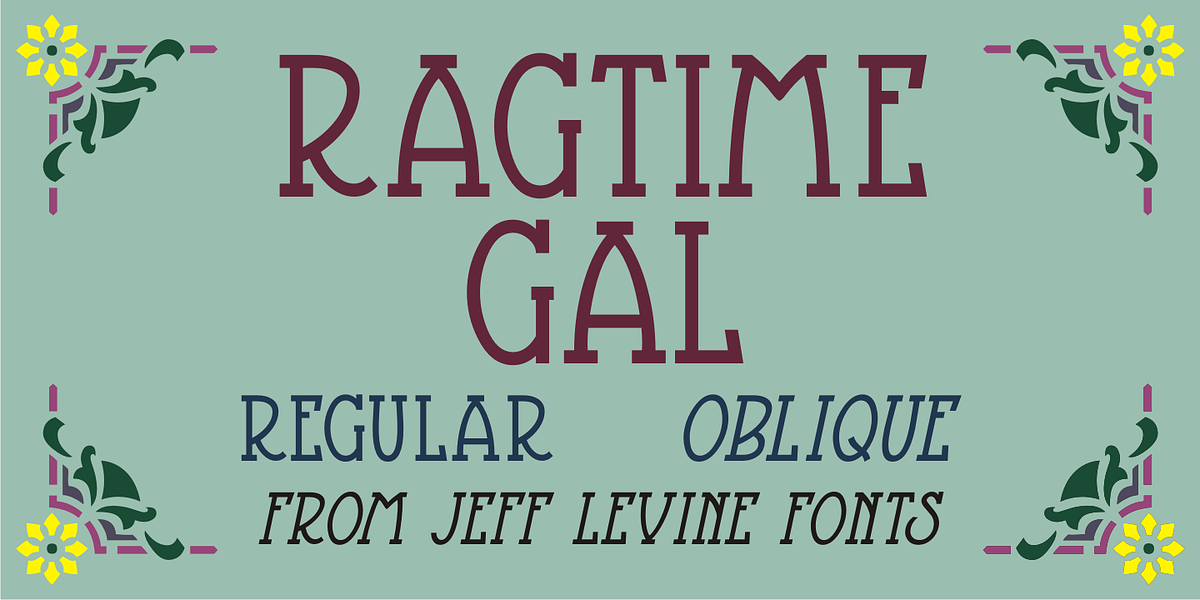
Ragtime Gal JNL
Amongst a batch of antique sheet musical instruction booklets offered for sale online was a piece with Art Nouveau hand lettering on the cover entitled “Seven Musical Travelogues for Piano”.
This design served as the inspiration and model for Ragtime Gal JNL, which is available in both regular and oblique versions.
The font’s name comes from the line ‘Hello my baby, hello my honey, hello my ragtime gal…’ from the 1899 song “Hello Ma Baby”; a tune that found a new burst of popularity in an odd way within a 1955 Warner Brother’s cartoon [“One Froggy Evening”].